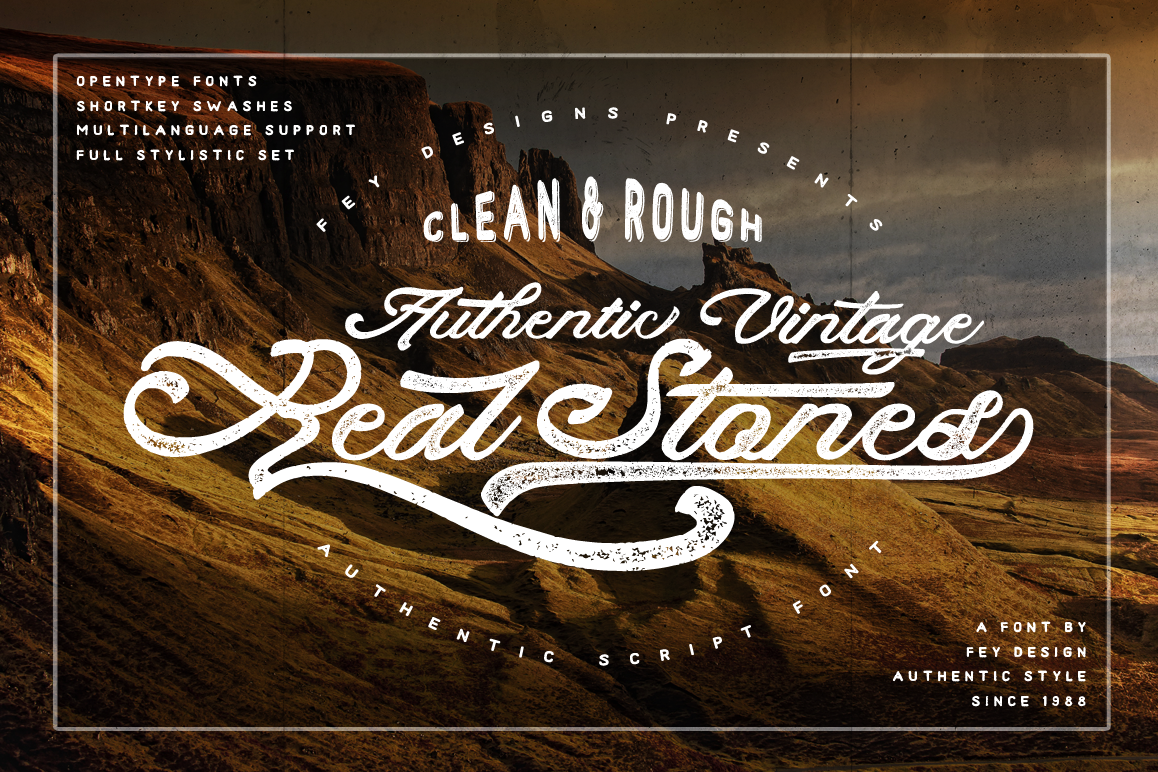
Real Stones - Clean And Rough + Extras
Real Stones - Clean And Rough is Authentic calligraphy style, has include two styles clean and rough, Suitable for design, element design, wedding, event, t-shirt, logo, badges, sticker, and awesome work, etc...
Feauture Of The Font:
- Short Code for Swashes Just Type -1, -2, ... until -13 After End Glyphs
- Standard Ligatures, Stylistic Set, Multilanguage Characters
- Authentic Calligraphy Typeface
- Multilanguage Support
- Unique style fonts